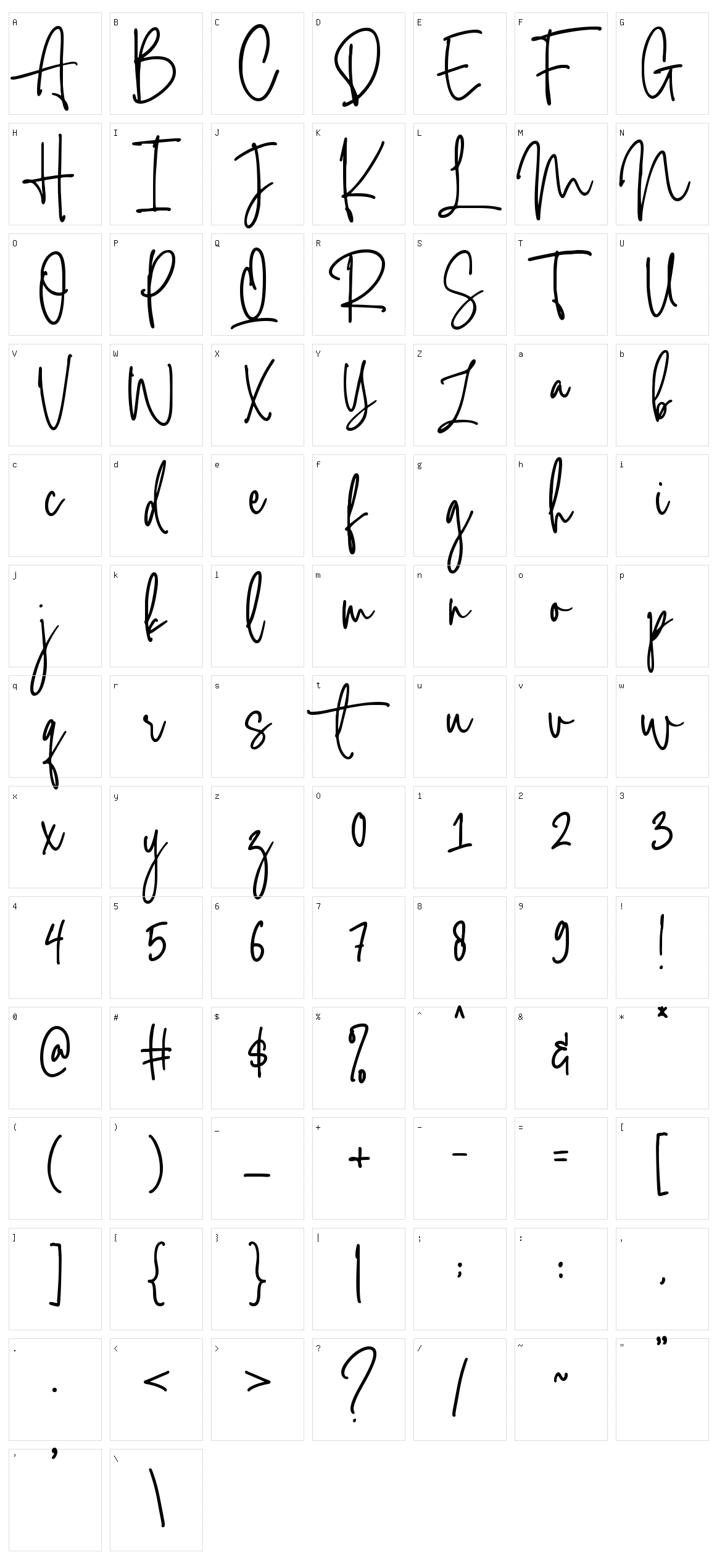
The free font Hastery Signature is carefully designed by sronstudio, showcasing a thoughtful balance of creativity and usability and falls under the Script font style. When you download the ZIP file, it contains only 38.18 KB of font files, making it lightweight and quick to download. Please review the license details below to understand permitted usage and distribution rights. If license information is not available, we recommend using this font for personal projects only or contacting the author directly for commercial usage permissions.